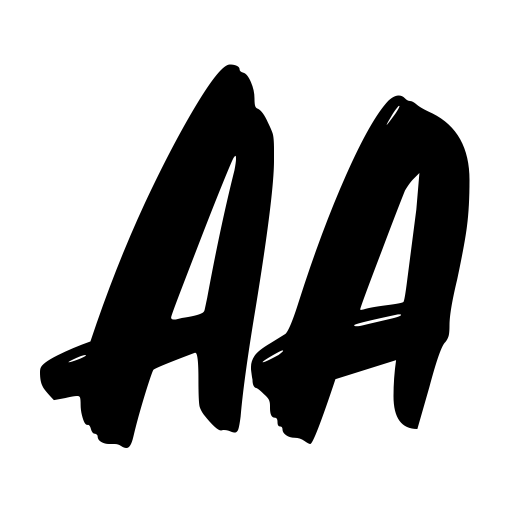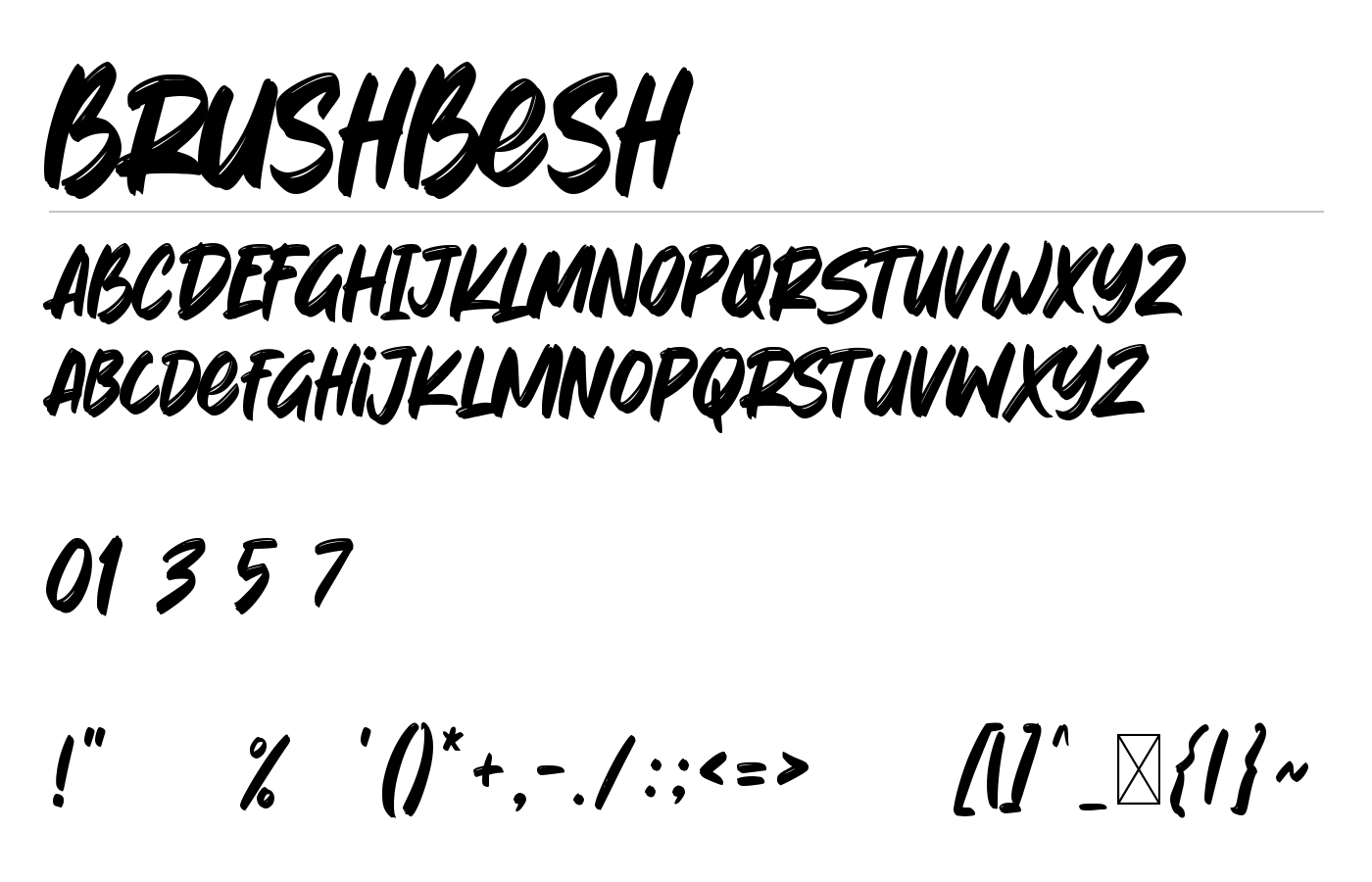
BrushBesh is a bold, energetic brush script font with a strong handwritten feel, featuring thick, dynamic strokes and slightly irregular shapes that add a lively, authentic touch. Its high contrast and casual style make it perfect for eye-catching headlines, branding, or creative projects where a spontaneous and approachable vibe is desired. This font works great for logos, posters, and social media graphics that want to communicate fun, creativity, and personality.
BrushBesh Font
About BrushBesh Font